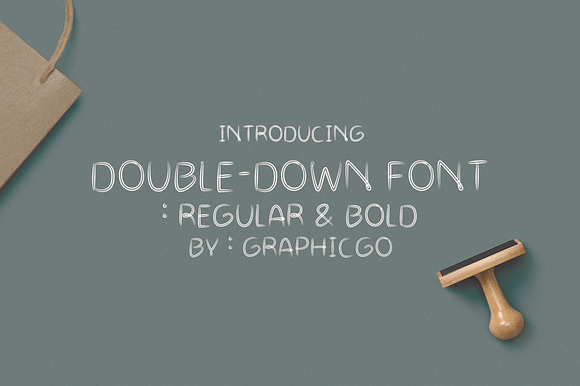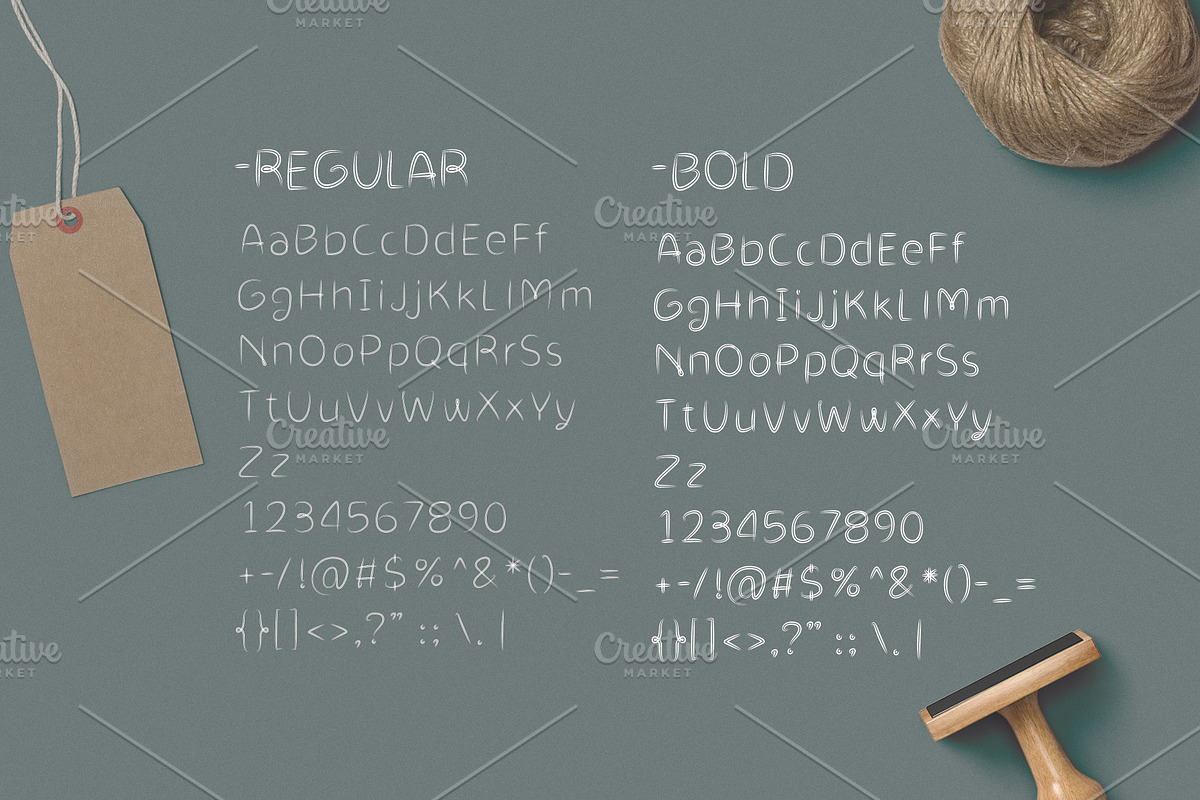
Double Draw Font
Double Draw Font is double thin lines brush writing style. It 's perfect for any simple looking products, cards, posters, wall art, branding, diy projects, greeting cards, labels, quotes, packaging, websites and much more.
Uppercase and Lowercase
Double Draw Font by Graphicgo fits naturally into Branding, posters, packaging, typography.